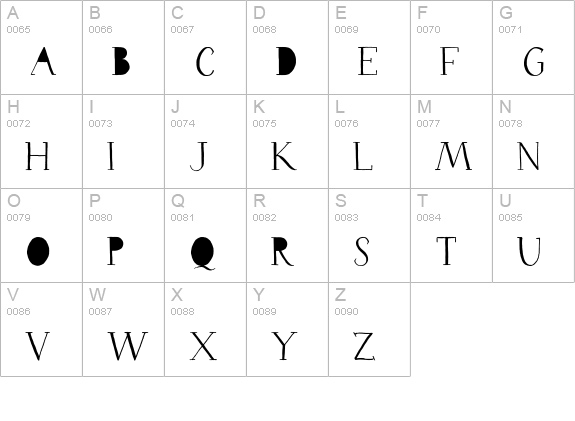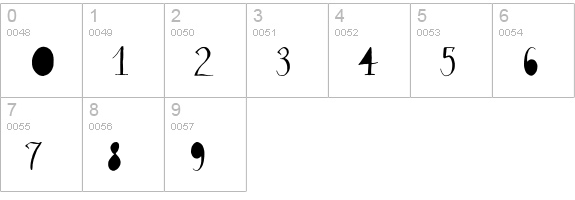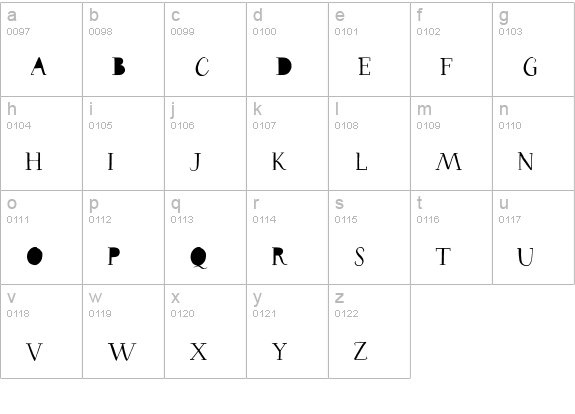
Salt & Spices Pro SC Serif2 Font Details
Introducing the Salt & Spices Pro SC Serif2 font, a sophisticated and elegant typeface designed to elevate your design projects to new heights. This font exudes a sense of timeless charm and refinement, making it perfect for adding a touch of class to any creative endeavor. With its clean lines and distinctive serifs, Salt & Spices Pro SC Serif2 font commands attention while maintaining a sense of understated elegance. Whether you're working on a branding project, editorial design, or any other creative endeavor, this font is sure to make a lasting impression. And the best part? Salt & Spices Pro SC Serif2 font is available for free download at FontsMarket.com. That's right, you can elevate your designs with this stunning font without breaking the bank. Don't miss out on this opportunity to add a touch of sophistication to your projects with the Salt & Spices Pro SC Serif2 font. Download it today and see the difference it can make!